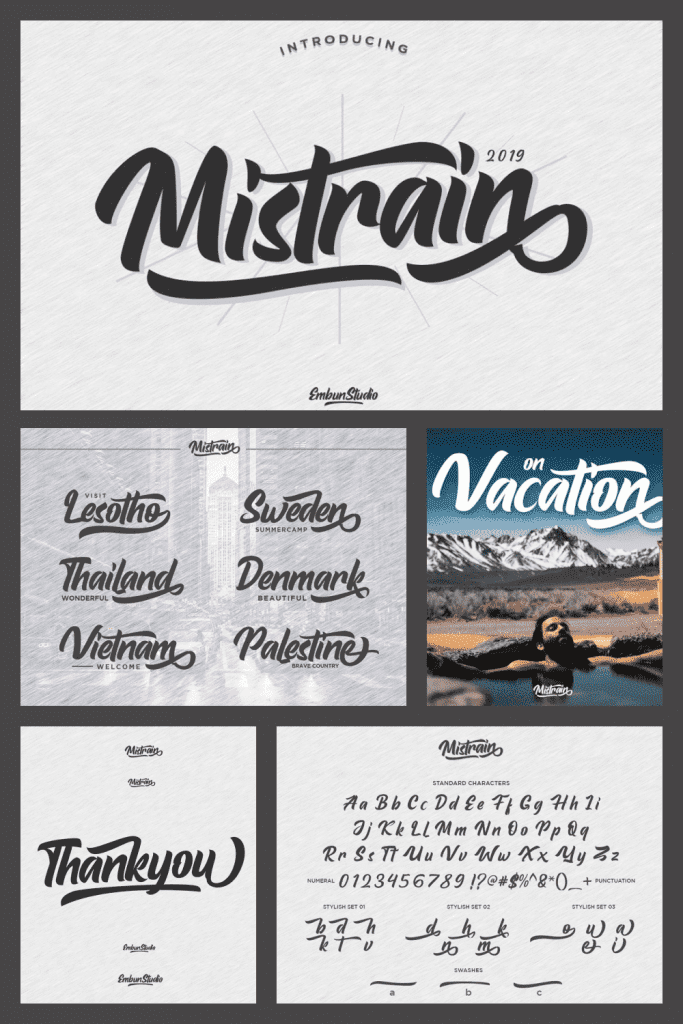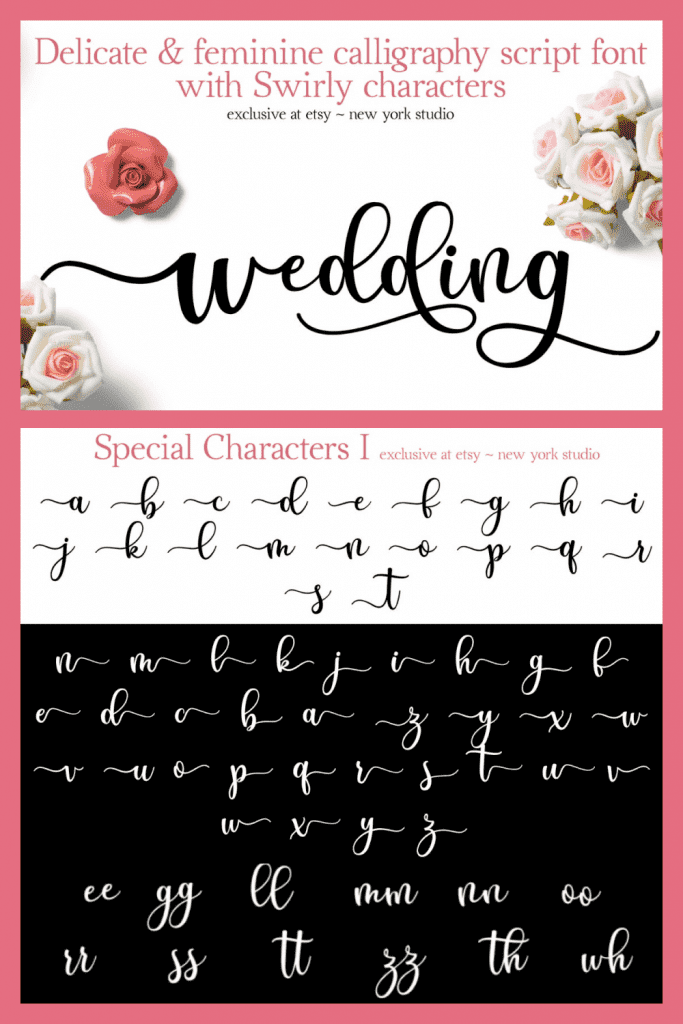
Best Fonts For Business Cards 2021 . With these best fonts for business cards, you already shape how others perceive your brand. In this post, we’re featuring some of the best fonts for business cards you can use to create just the right style and tone for your. Get insights on the best fonts, font sizes, and how to combine them with a great design. The ideal font should be easily readable at small. With so few design elements on them, choosing the best font for business cards can be a big decision. 21 professional and impressive business card fonts. There are tons of business card fonts available, but choosing the right one is so much more than just selecting a font that “looks good” and calling it a day. The best font for business cards is easy to read and attracts attention. Creating business cards can be challenging, especially if you’re unsure of which font to use. Business cards need fonts that are legible and align with the brand’s identity.
Business cards need fonts that are legible and align with the brand’s identity. There are tons of business card fonts available, but choosing the right one is so much more than just selecting a font that “looks good” and calling it a day. The ideal font should be easily readable at small. In this post, we’re featuring some of the best fonts for business cards you can use to create just the right style and tone for your. Get insights on the best fonts, font sizes, and how to combine them with a great design. With so few design elements on them, choosing the best font for business cards can be a big decision. Creating business cards can be challenging, especially if you’re unsure of which font to use. 21 professional and impressive business card fonts. With these best fonts for business cards, you already shape how others perceive your brand. The best font for business cards is easy to read and attracts attention.
Best Fonts For Business Cards 2021 With so few design elements on them, choosing the best font for business cards can be a big decision. With these best fonts for business cards, you already shape how others perceive your brand. There are tons of business card fonts available, but choosing the right one is so much more than just selecting a font that “looks good” and calling it a day. Get insights on the best fonts, font sizes, and how to combine them with a great design. Creating business cards can be challenging, especially if you’re unsure of which font to use. 21 professional and impressive business card fonts. The ideal font should be easily readable at small. In this post, we’re featuring some of the best fonts for business cards you can use to create just the right style and tone for your. The best font for business cards is easy to read and attracts attention. Business cards need fonts that are legible and align with the brand’s identity. With so few design elements on them, choosing the best font for business cards can be a big decision.
Best Fonts For Business Cards / 20 Free Fonts For Fabulous Business Best Fonts For Business Cards 2021 With so few design elements on them, choosing the best font for business cards can be a big decision. In this post, we’re featuring some of the best fonts for business cards you can use to create just the right style and tone for your. Business cards need fonts that are legible and align with the brand’s identity. With these. Best Fonts For Business Cards 2021.
20 Best Professional Modern Business Fonts 2021 Theme Junkie Best Fonts For Business Cards 2021 In this post, we’re featuring some of the best fonts for business cards you can use to create just the right style and tone for your. Creating business cards can be challenging, especially if you’re unsure of which font to use. 21 professional and impressive business card fonts. Business cards need fonts that are legible and align with the brand’s. Best Fonts For Business Cards 2021.
30+ Best Business & Corporate Fonts 2021 Design Shack Best Fonts For Business Cards 2021 21 professional and impressive business card fonts. Creating business cards can be challenging, especially if you’re unsure of which font to use. The ideal font should be easily readable at small. Business cards need fonts that are legible and align with the brand’s identity. In this post, we’re featuring some of the best fonts for business cards you can use. Best Fonts For Business Cards 2021.
The best fonts for business cards Business Card Expert Best Fonts For Business Cards 2021 Creating business cards can be challenging, especially if you’re unsure of which font to use. Get insights on the best fonts, font sizes, and how to combine them with a great design. With so few design elements on them, choosing the best font for business cards can be a big decision. There are tons of business card fonts available, but. Best Fonts For Business Cards 2021.
The best business card fonts to make you stand out 99designs Best Fonts For Business Cards 2021 21 professional and impressive business card fonts. Get insights on the best fonts, font sizes, and how to combine them with a great design. The best font for business cards is easy to read and attracts attention. In this post, we’re featuring some of the best fonts for business cards you can use to create just the right style and. Best Fonts For Business Cards 2021.
30+ Best Fonts for Business Cards in 2021 — MasterBundles Best Fonts For Business Cards 2021 Business cards need fonts that are legible and align with the brand’s identity. The best font for business cards is easy to read and attracts attention. With these best fonts for business cards, you already shape how others perceive your brand. Creating business cards can be challenging, especially if you’re unsure of which font to use. There are tons of. Best Fonts For Business Cards 2021.
Best Fonts For Business Cards vrogue.co Best Fonts For Business Cards 2021 Get insights on the best fonts, font sizes, and how to combine them with a great design. There are tons of business card fonts available, but choosing the right one is so much more than just selecting a font that “looks good” and calling it a day. The ideal font should be easily readable at small. With so few design. Best Fonts For Business Cards 2021.
30+ Best Fonts for Business Cards in 2021 — MasterBundles Best Fonts For Business Cards 2021 The best font for business cards is easy to read and attracts attention. With so few design elements on them, choosing the best font for business cards can be a big decision. The ideal font should be easily readable at small. There are tons of business card fonts available, but choosing the right one is so much more than just. Best Fonts For Business Cards 2021.